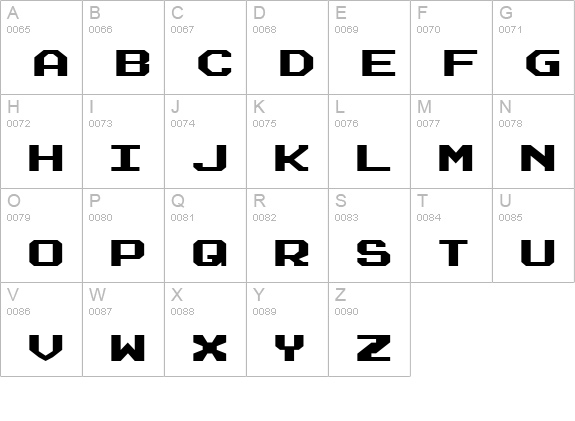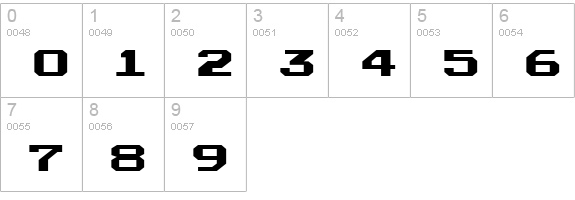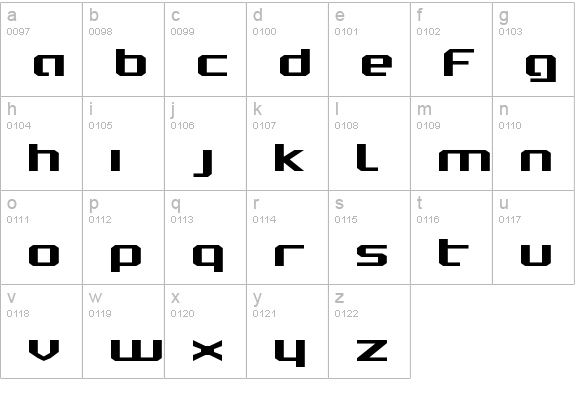
Realpolitik Expanded is a distinctive, extended-width variant in the Realpolitik typeface family \xE2\x80\x94 well suited to design and typography projects.
Realpolitik Expanded font is a versatile and modern typeface that exudes professionalism and sophistication. With its clean lines and sharp edges, this font is perfect for a wide range of design projects, from business presentations to editorial layouts. The expanded version of the Realpolitik font provides extra width, making it ideal for creating impactful headlines and eye-catching titles. What sets Realpolitik Expanded font apart is its seamless blend of elegance and functionality. Its bold yet elegant appearance commands attention while still maintaining a sense of refinement. Whether you're designing a sleek corporate brochure or a stylish website, this font is sure to elevate your project to the next level. Best of all, Realpolitik Expanded font is completely free to download at FontsMarket.com. This means you can enhance your designs with this exceptional typeface without any additional cost. Don't miss out on the opportunity to add this versatile and striking font to your design toolkit today.